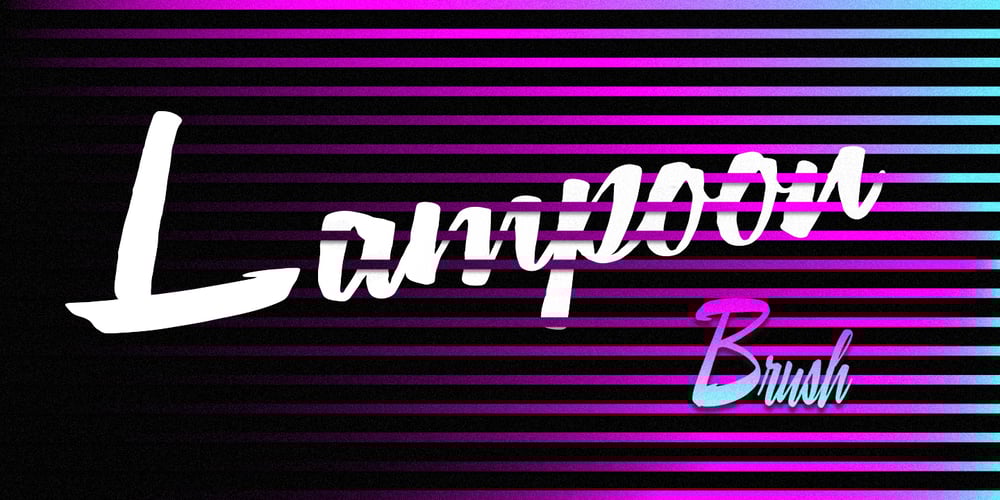
Lampoon Brush Font Family was designed by Dathan Boardman and published by Rocket Type. Lampoon Brush contains 6 styles and family package options. Lampoon Brush originates from a film strip of paint brush lettering. It has crisp deliberate brush strokes and is perfect for use in many different applications namely when you’re seeking that retro/vintage feel.